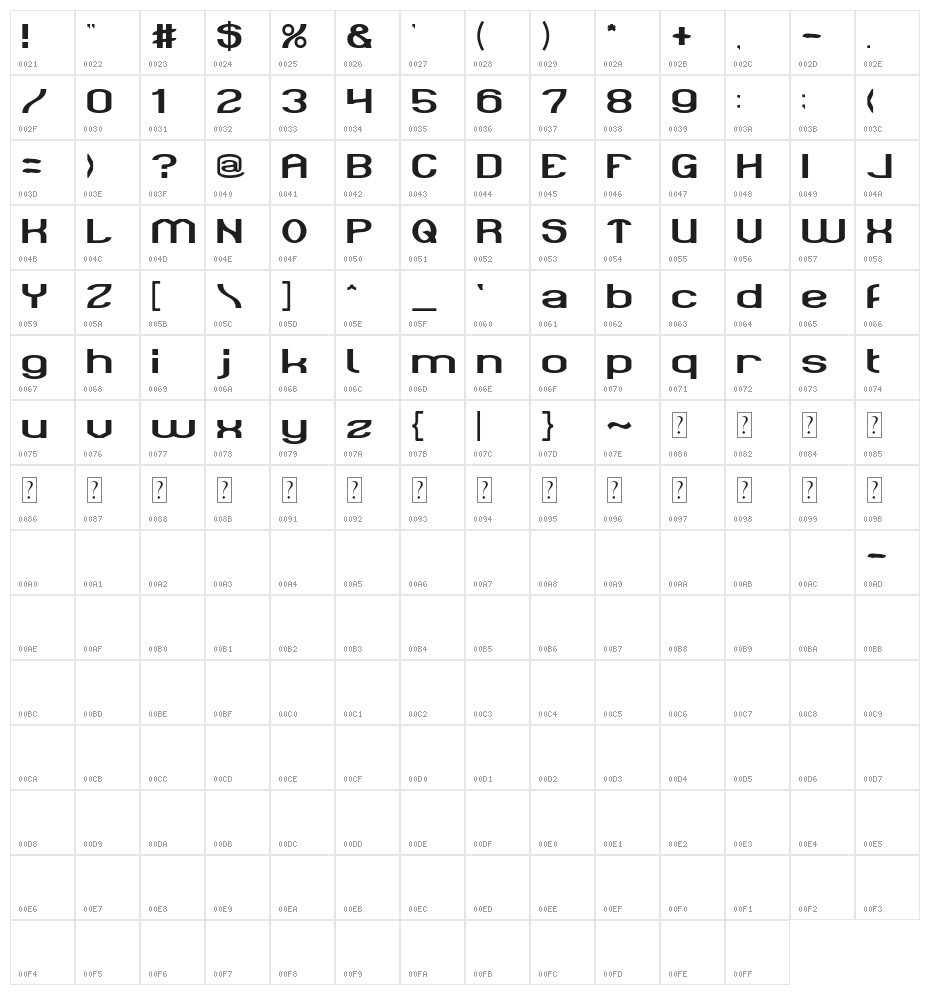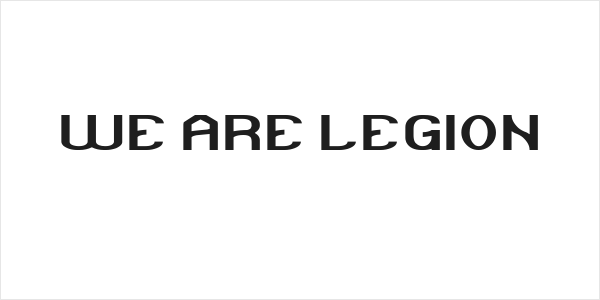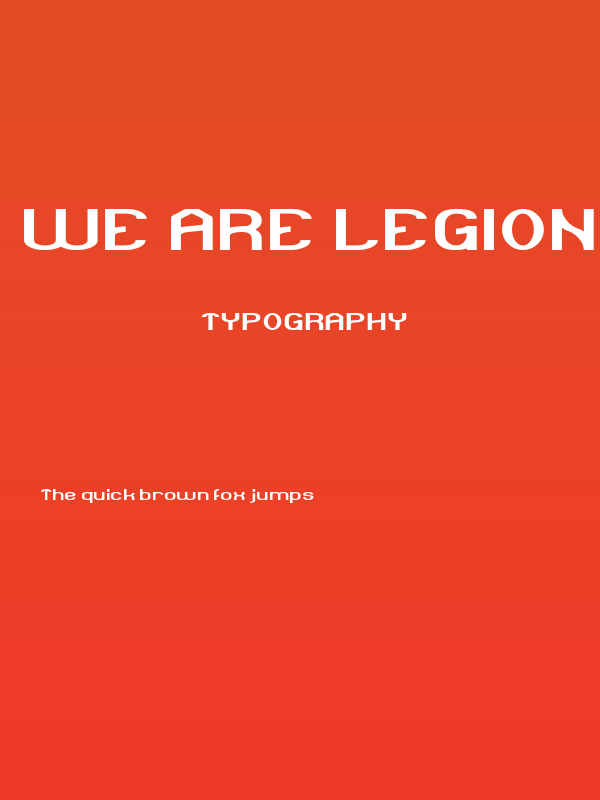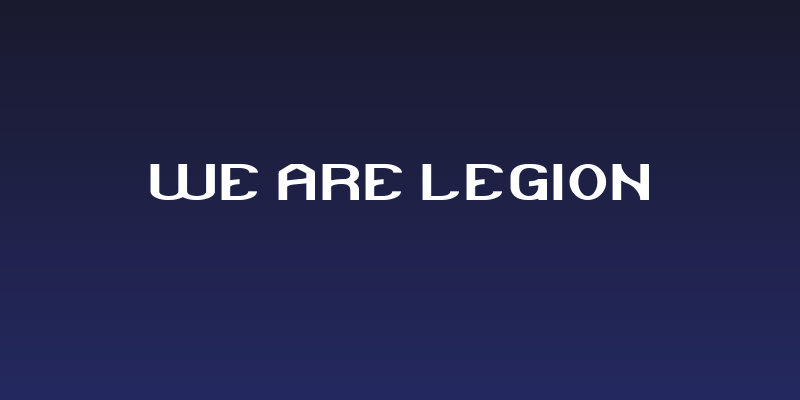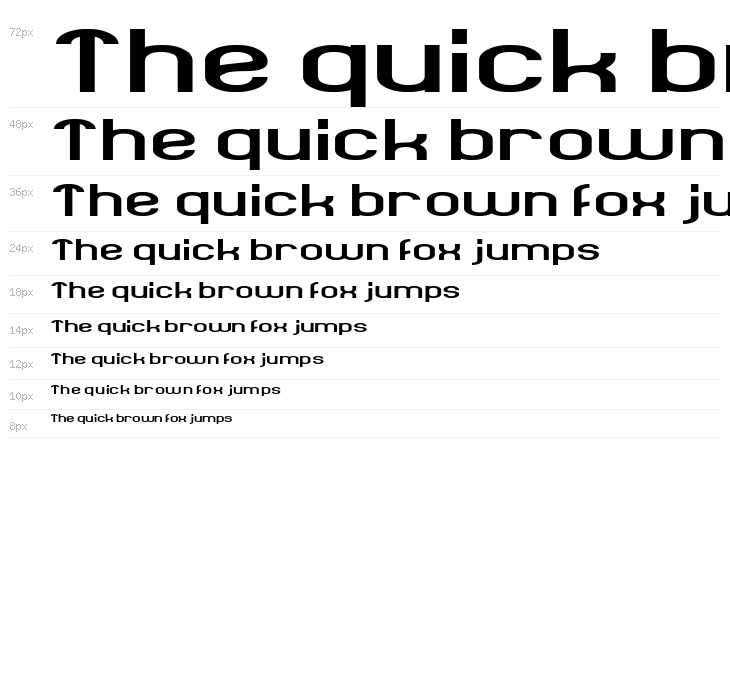
WE ARE LEGION Font
WE ARE LEGION Description
This font features a modern and futuristic design with a unique geometric structure. The characters are bold and have a distinct angular style, giving them a strong and assertive presence. The uppercase letters are particularly striking, with sharp edges and a uniform height that creates a cohesive look. The lowercase letters maintain the geometric theme, offering a consistent visual flow. Numbers and special characters are designed to match the overall aesthetic, ensuring versatility across different uses. The font's clean lines and bold appearance make it suitable for projects that require a contemporary and impactful look.
| Proposed Projects | Ideal for technology branding, futuristic posters, and digital interfaces. |